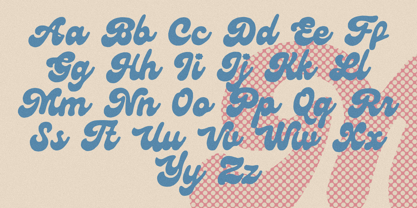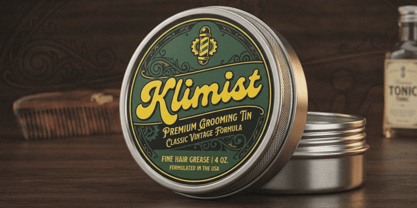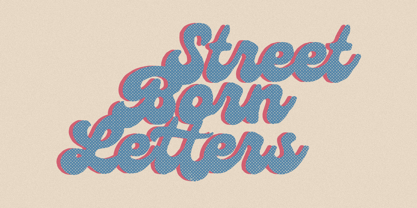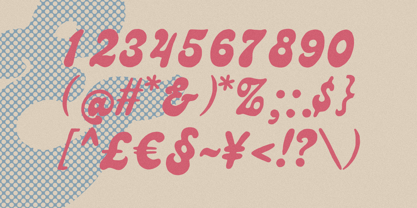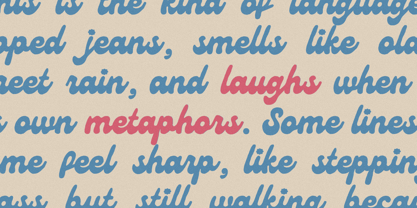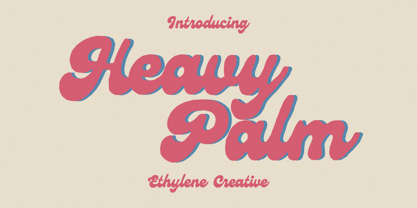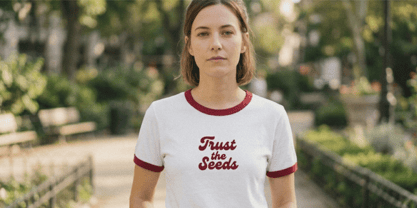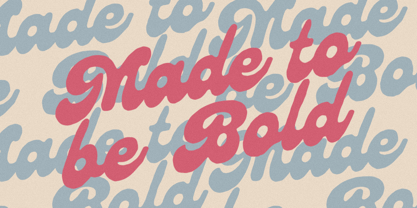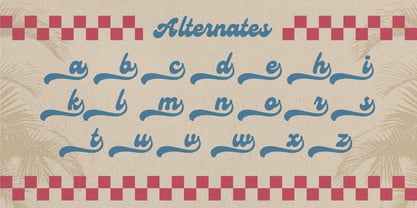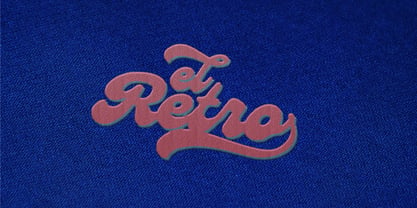
Heavy Palm
by Ethylene
The Heavy Palm Font Family was designed by Cherly Nugroho and published by Ethylene. Heavy Palm contains 1 styles. More about this family
Heavy Palm is a bold retro script font inspired by vintage signage, classic diners, and nostalgic advertising. With its thick, smooth curves and playful letterforms, this typeface brings a warm and friendly personality to any design.
Designed with strong visual impact in mind, Heavy Palm features chunky strokes, soft terminals, and dynamic connections that create a natural flowing rhythm.
This font works beautifully for logos, packaging, posters, signage, apparel, and food-related designs, especially anything that calls for a vintage or retro aesthetic
Features:
• Uppercase & Lowercase
• Numerals & Punctuation
• Stylistic Alternates & Ligatures
• Multilingual Support
Bring a touch of retro charm and bold character to your work with Heavy Palm.